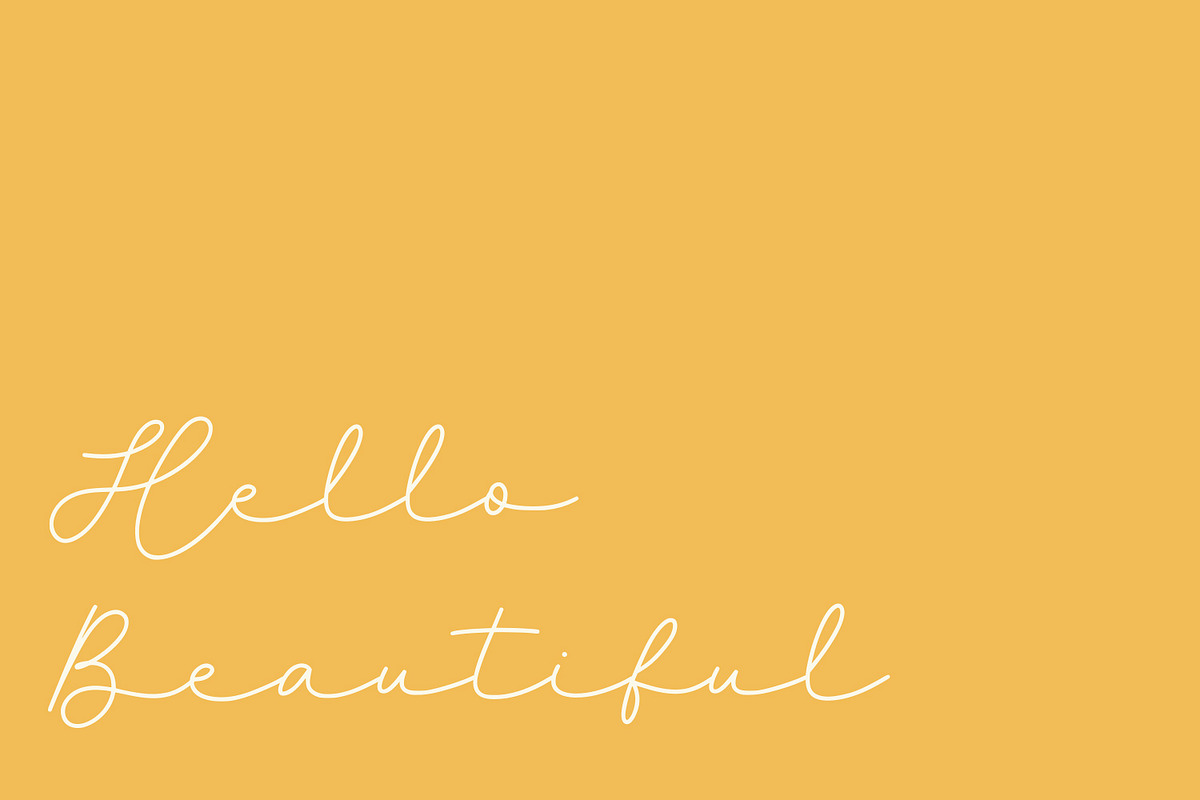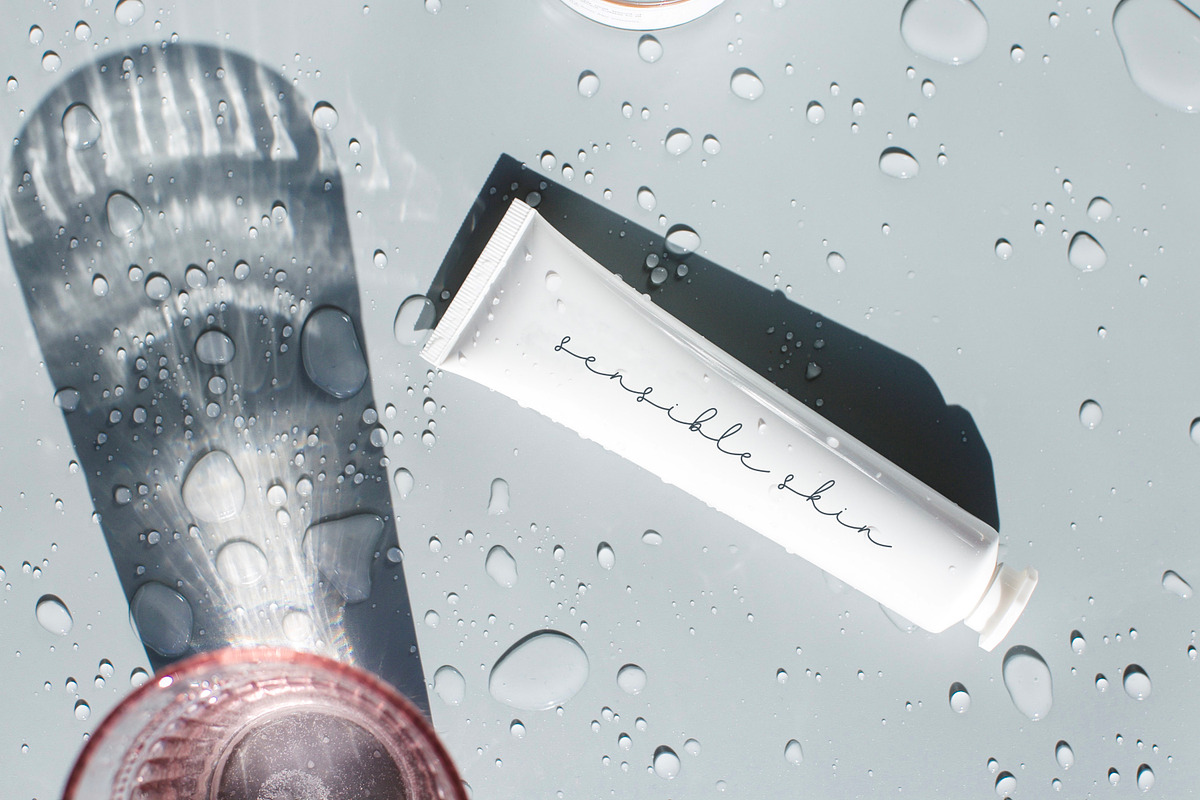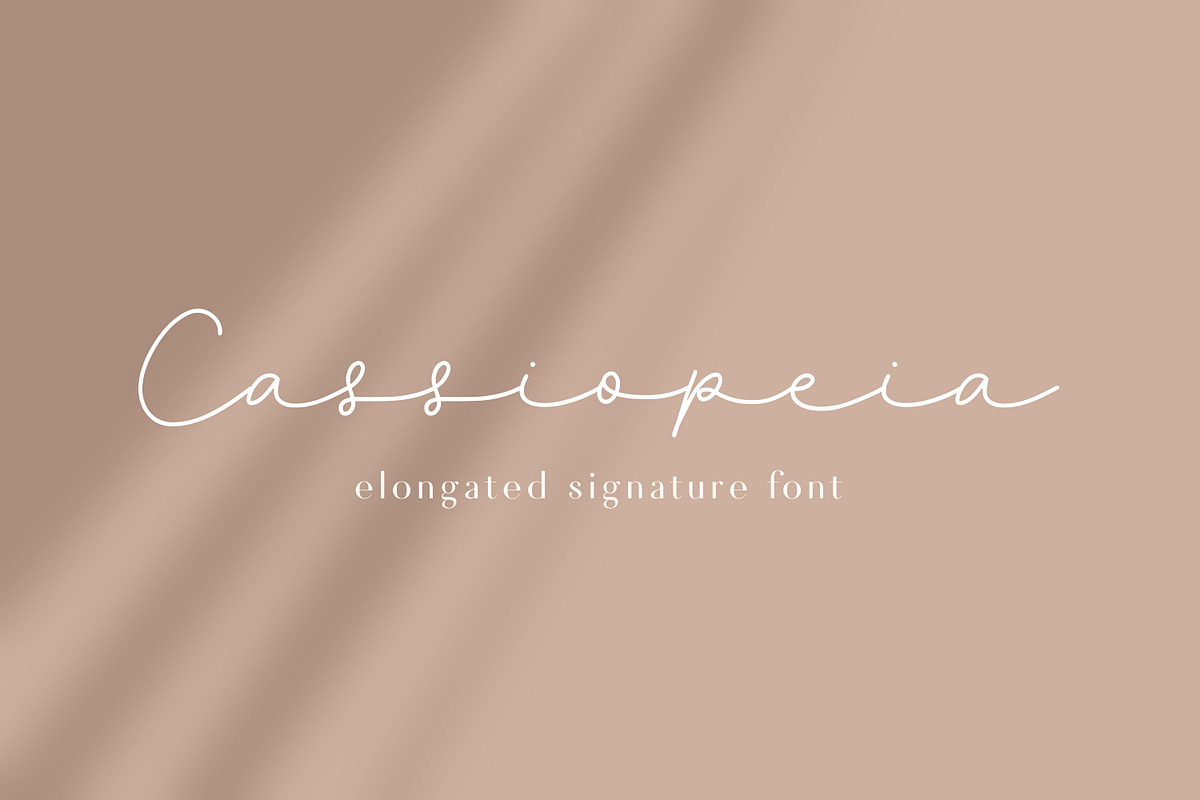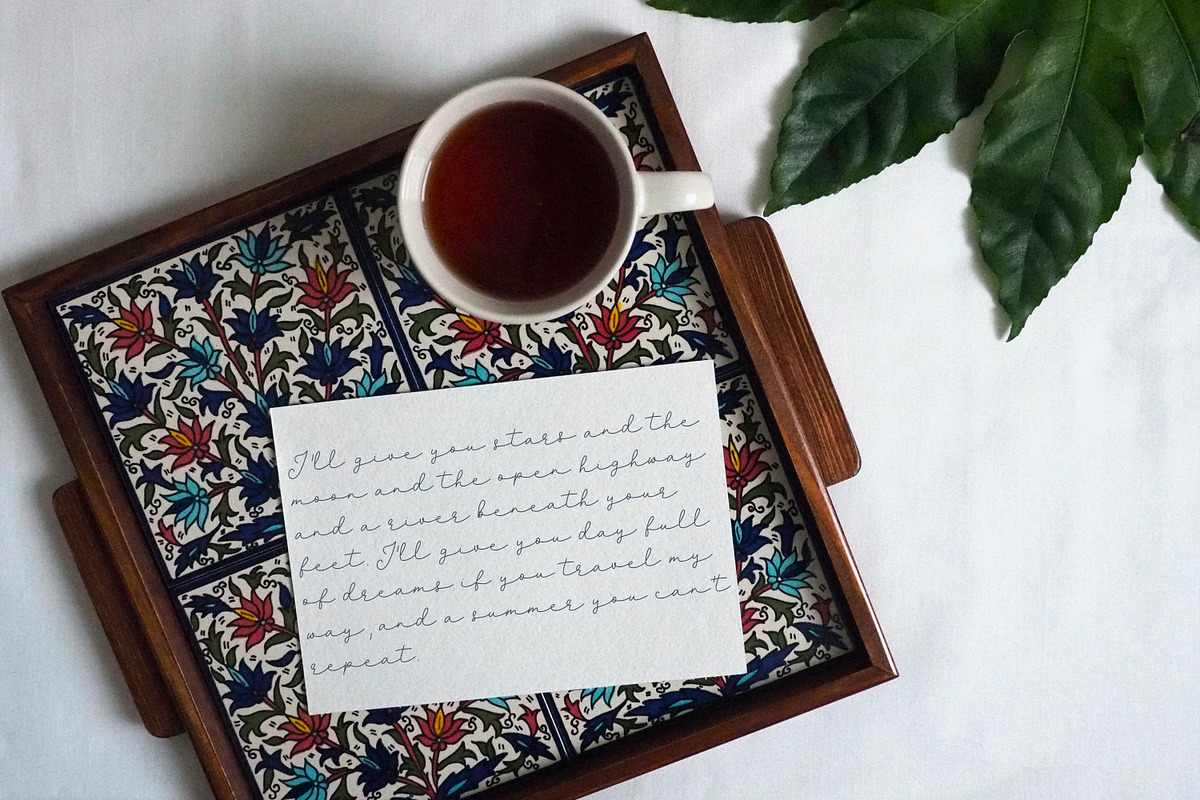
Cassiopeia Signature Script Font
Introducing the Cassiopeia handwritten/hand drawn font. This elongated signature script font is perfect for any design. It works great for branding, logos, posters, magazines, quotes, or even tattoo designs!